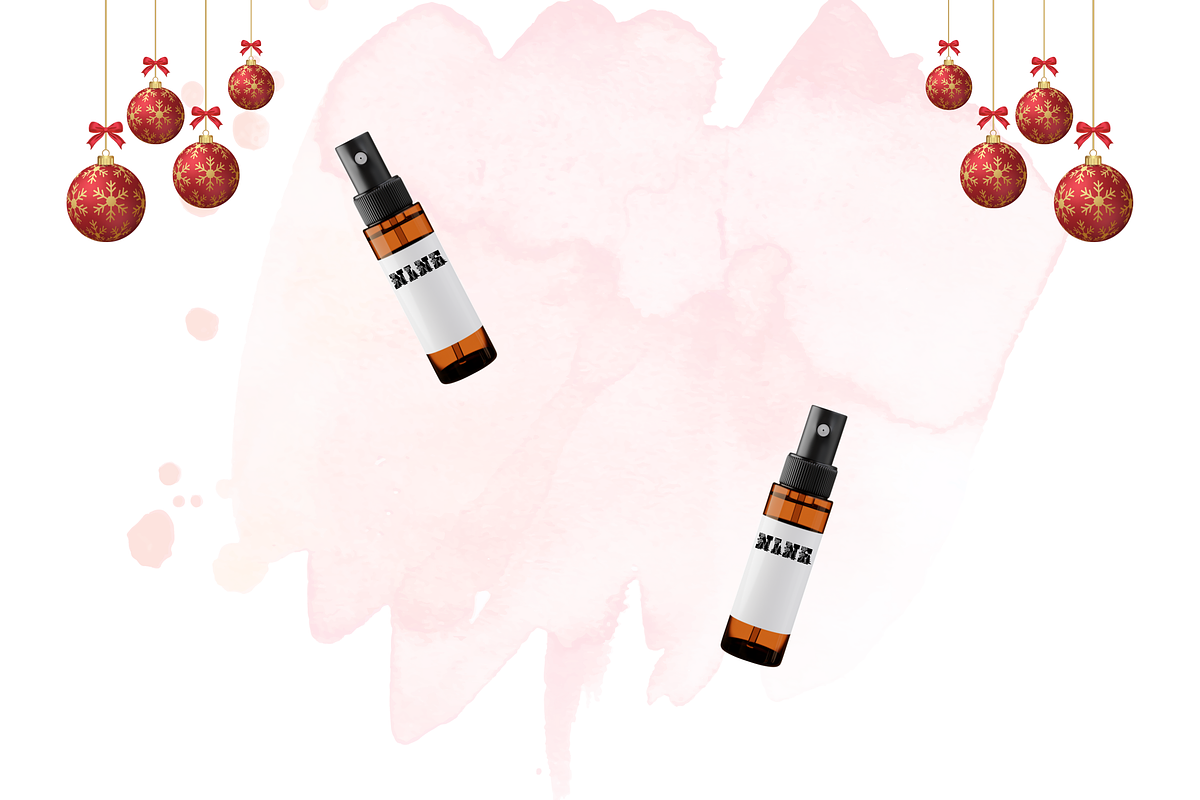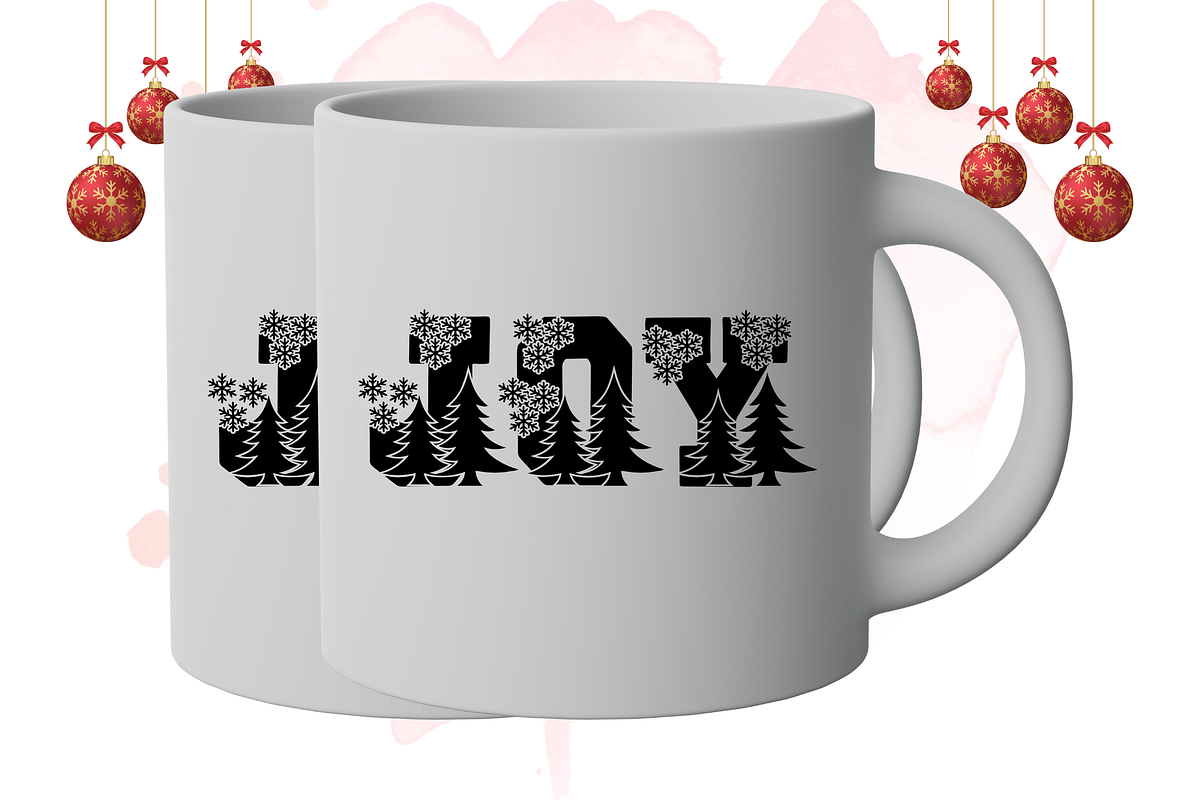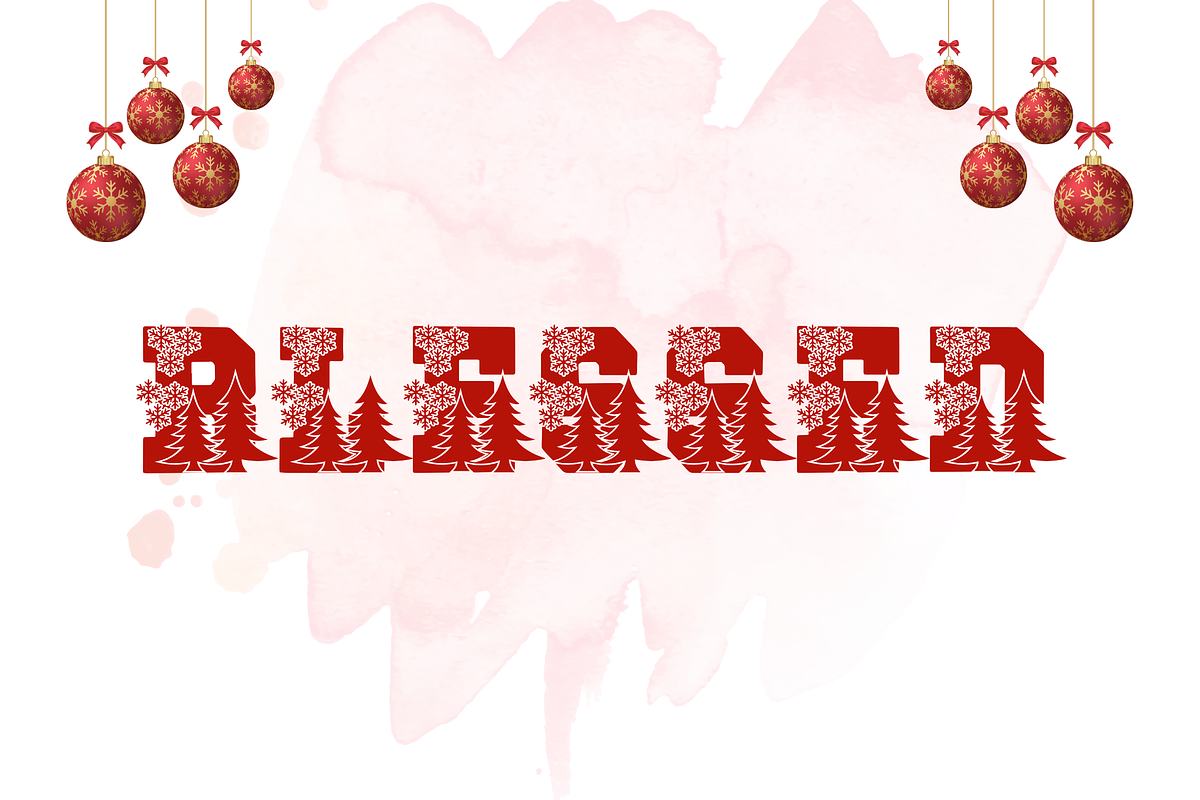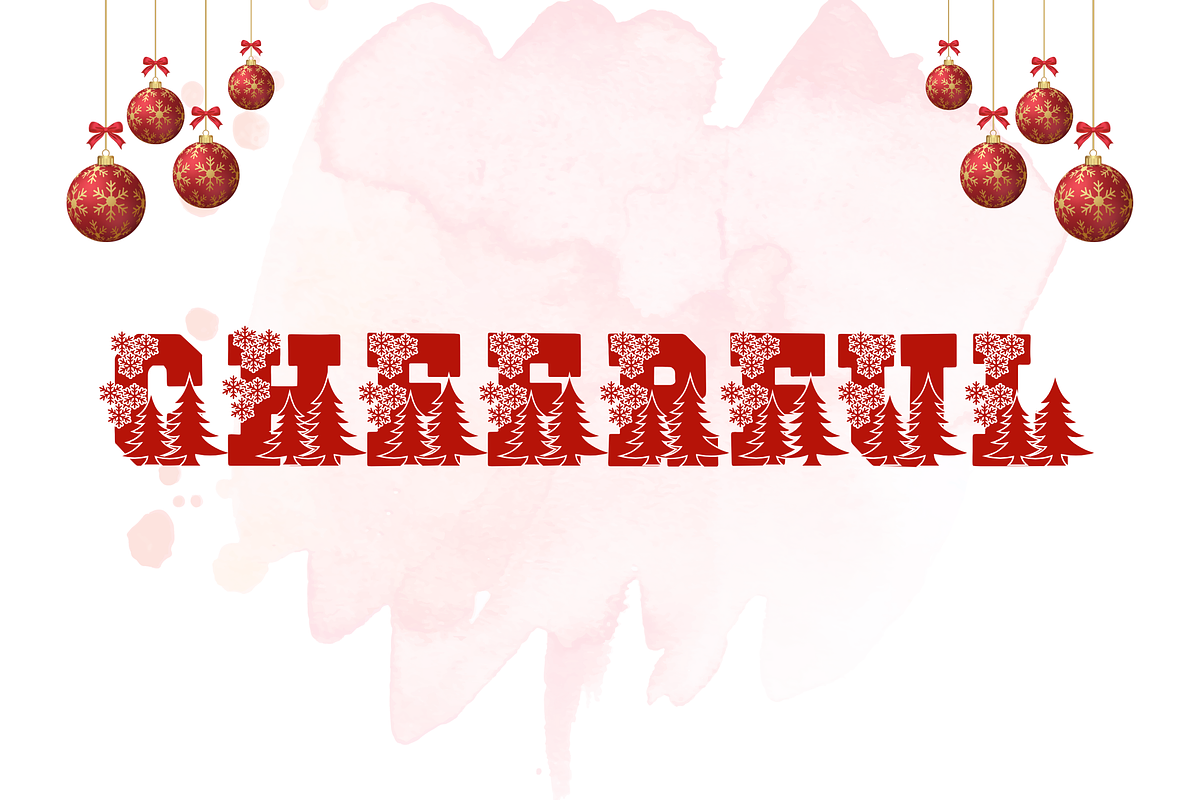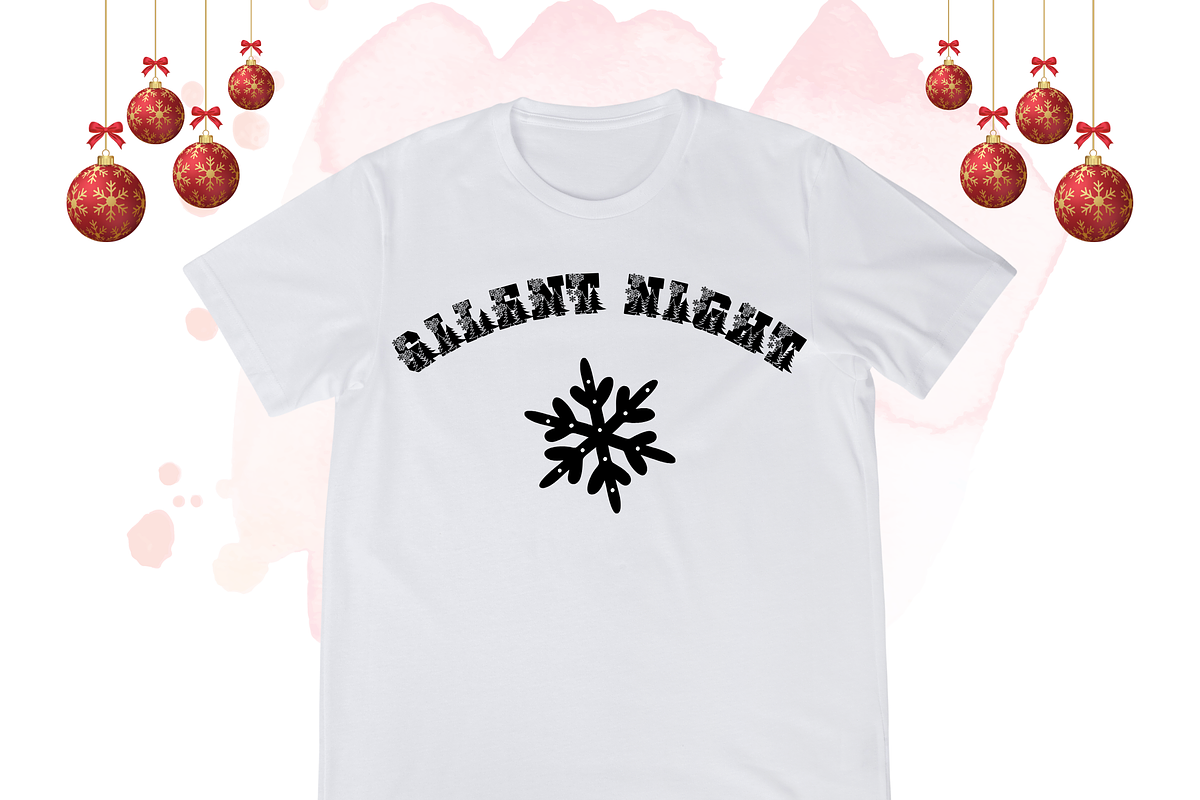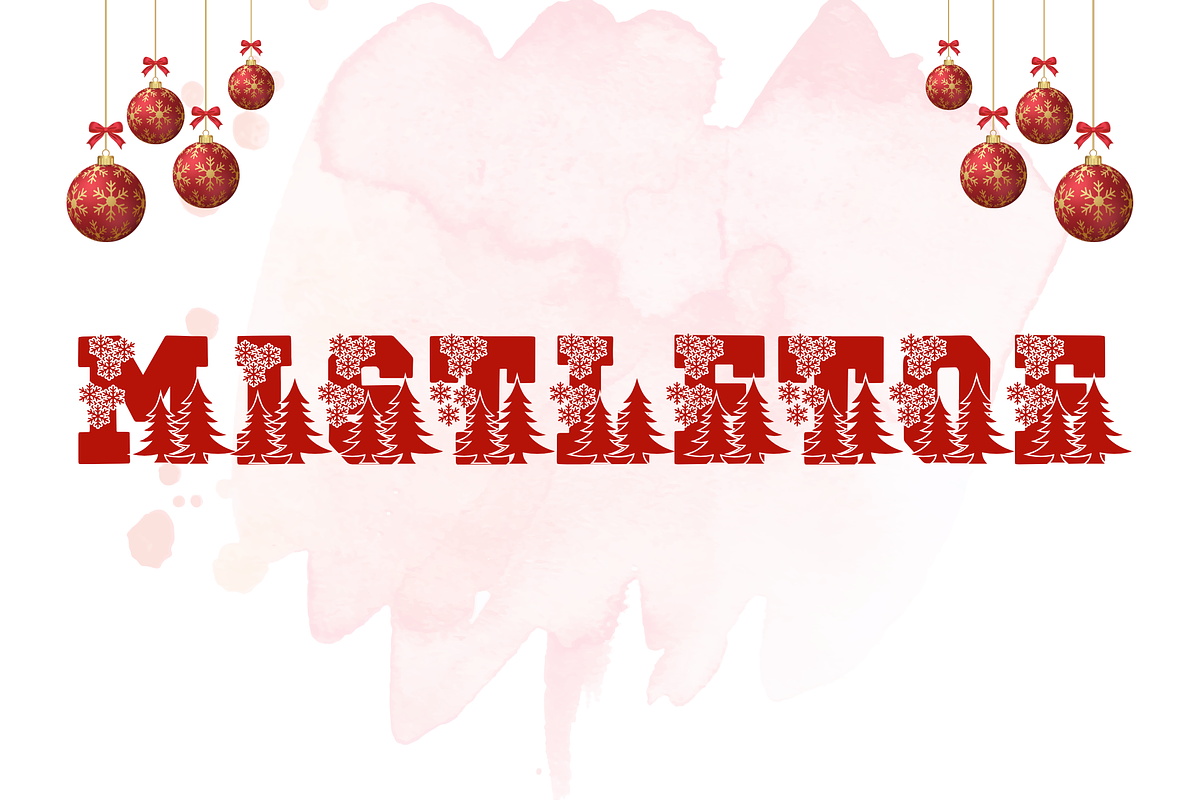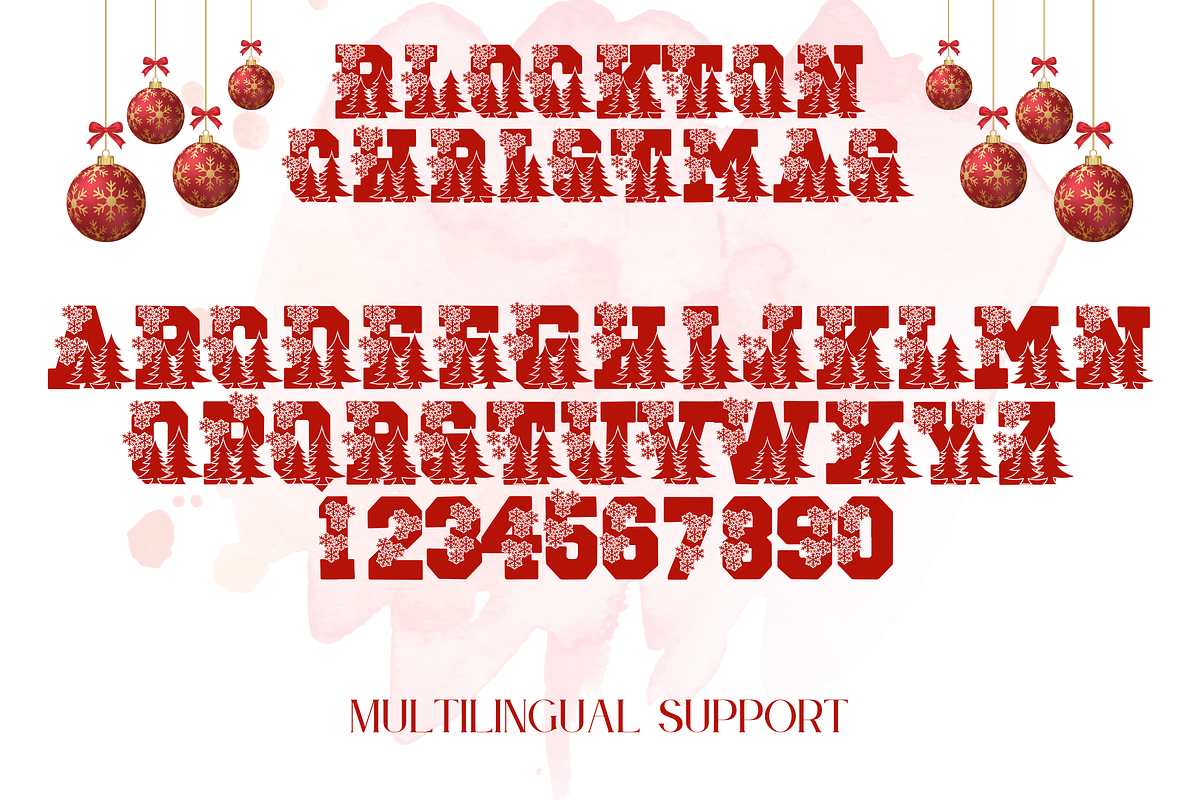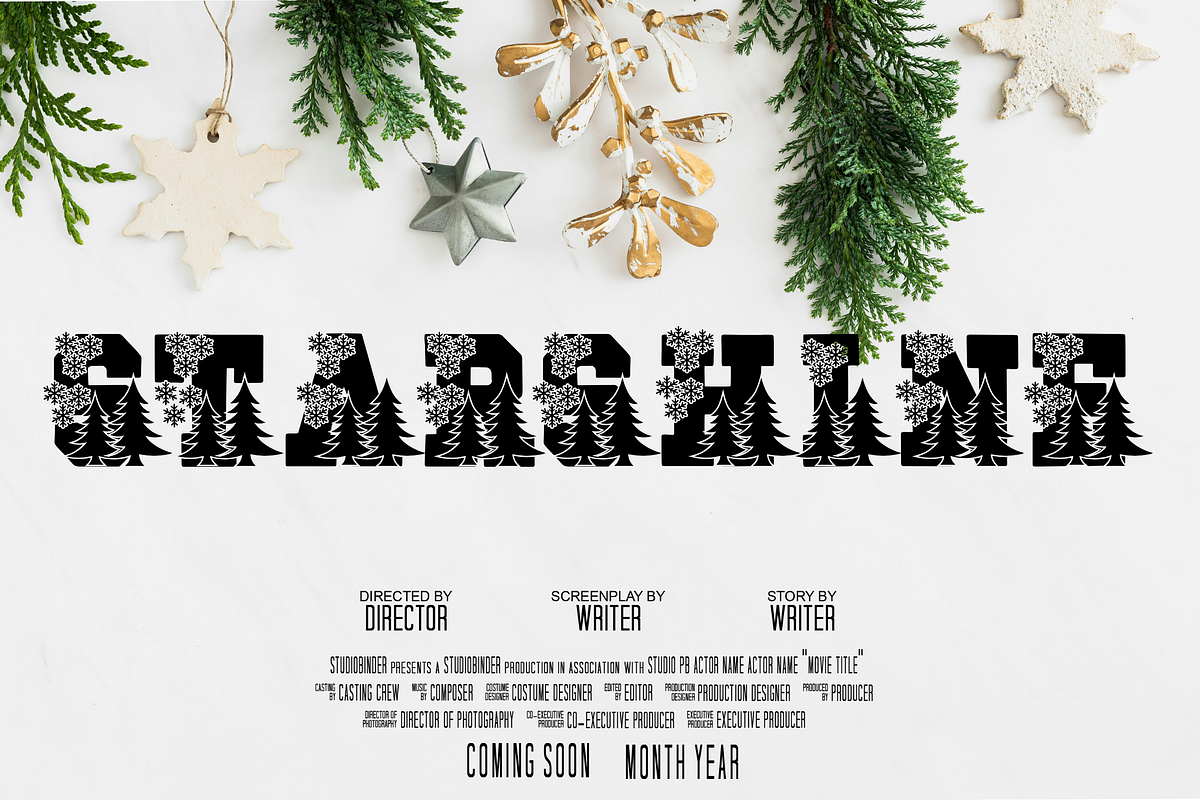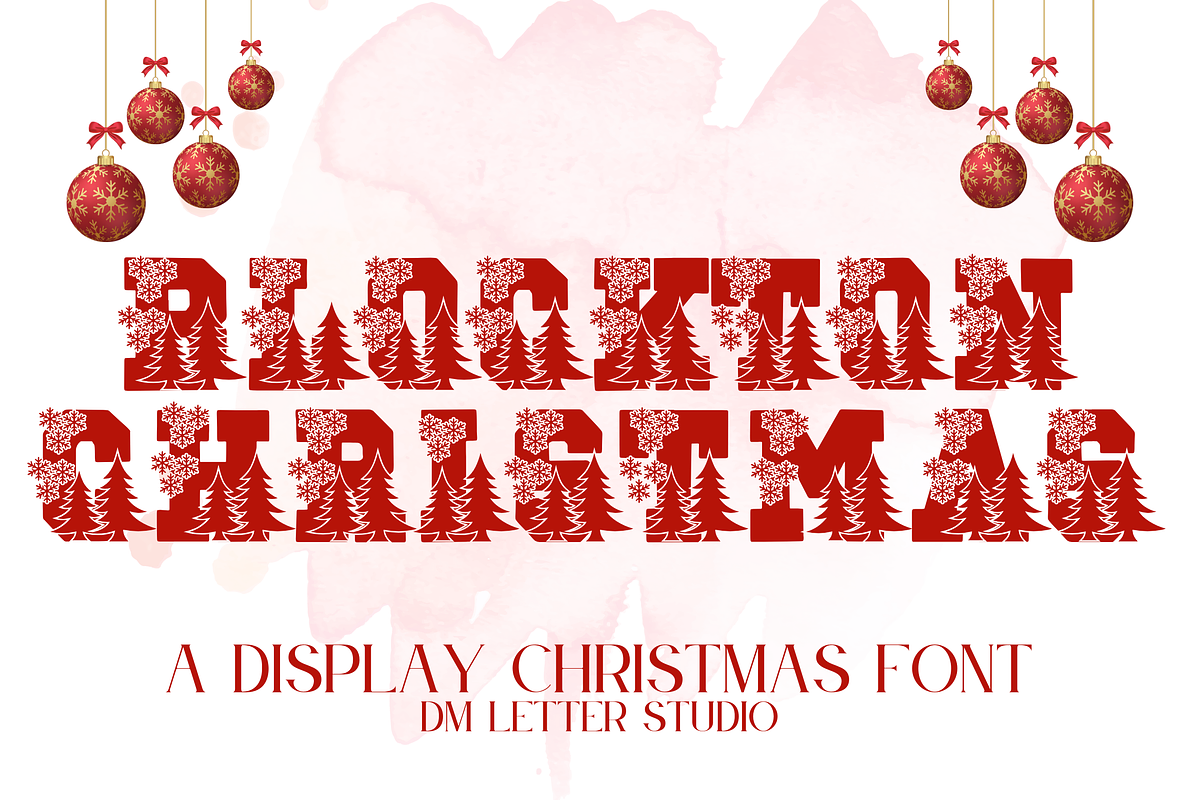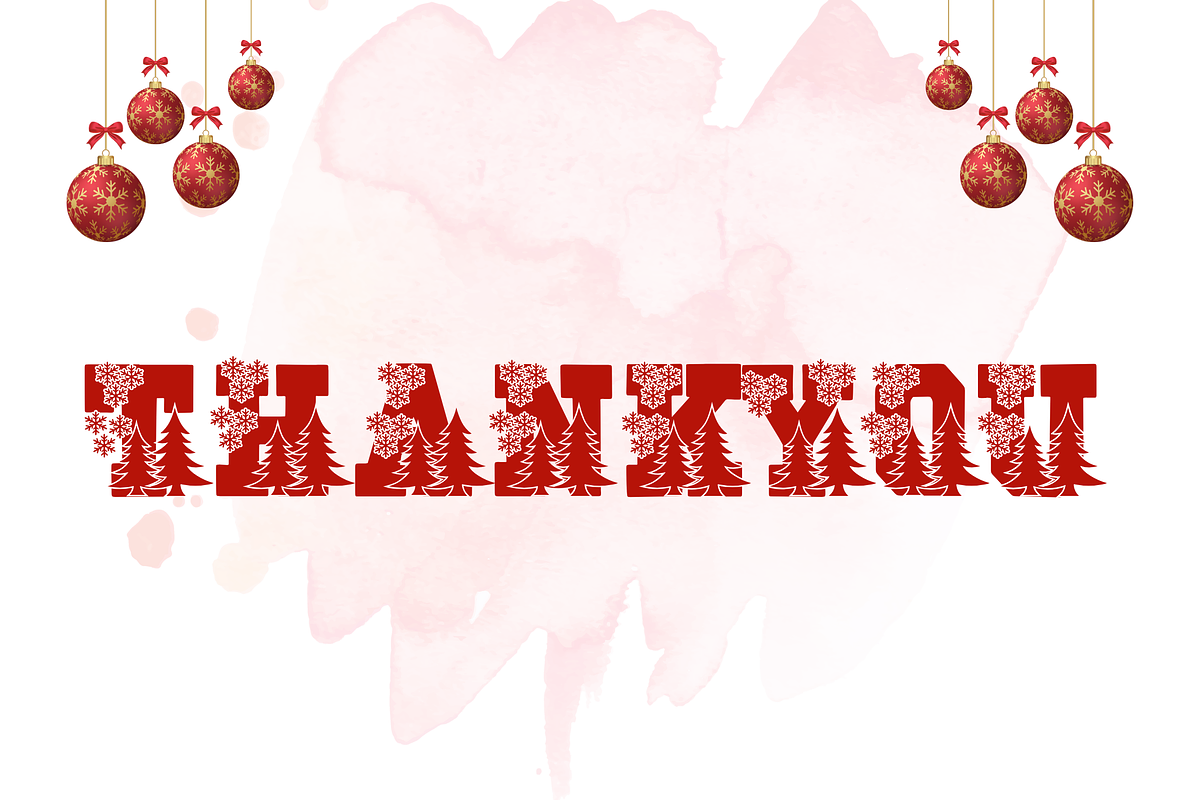
Blockton Christmas
Meet Blockton Christmas, the Bold Holiday Display Font
Blockton Christmas is a bold block display font with a cheerful holiday twist. It keeps the strong, clean structure of Blockton while adding a festive mood that feels fun, friendly, and easy to read. The chunky letterforms stay clear at any size, so they work perfectly for everything from small gift tags to large holiday headlines. Use it for Christmas cards, gift packaging, posters, apparel, stickers, classroom decor, and seasonal branding. As a result, your holiday designs feel bold, joyful, and instantly eye-catching.
Fast layouts with the Blockton Christmas Font
Start with short, festive phrases and let the bold shapes lead. After that, add supporting text in a clean sans font to keep everything readable. Because Blockton Christmas has solid geometry, it works especially well in badges, stacked layouts, and boxed designs. In addition, it shines on labels, ornaments, signage, and sticker-style compositions. Finally, try color pairs like red & white, forest green & cream, cranberry & ivory, or gold & charcoal to lock in the vibe.
Creative uses and quick wins
- Christmas cards, posters, and printable quotes
- Gift tags, stickers, and holiday packaging
- Apparel designs for sweaters, shirts, and totes
- Classroom decor, signs, and seasonal merch
- Uppercase, lowercase, numbers, punctuation
Design tips for Blockton Christmas Font
Keep text short so the bold shapes stay playful and clear. Also, give letters enough spacing for small prints like tags. For extra holiday charm, add simple icons like stars, trees, or snowflakes around the text. Finally, export at 300 DPI for print and at 2× size for web so edges stay crisp everywhere.